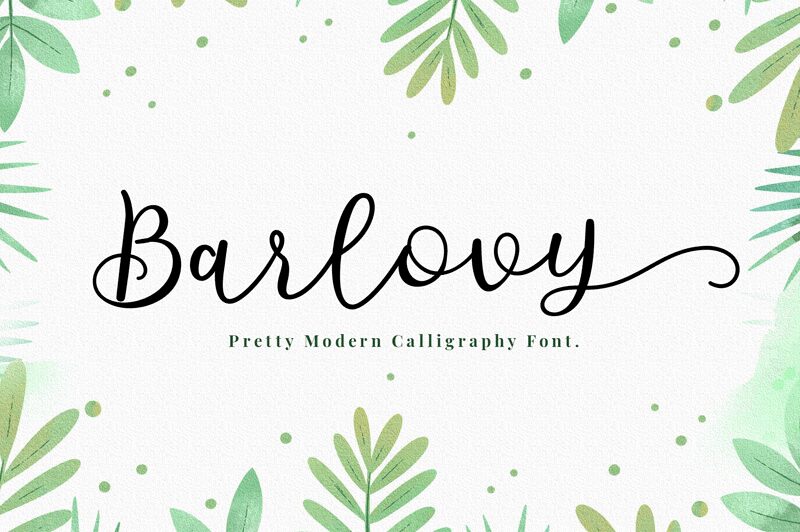
Barlovy Script, designed by Sizimon.id, is a stunning calligraphy font that exudes elegance and sophistication. With its semi-light weight, this font is perfect for projects requiring a delicate touch, such as wedding invitations or romantic poetry. Barlovy Script features flowing strokes and intricate details that are sure to make any text stand out. Whether you're designing a logo or creating a beautiful quote graphic for social media, Barlovy Script is the perfect choice for projects that require an artistic touch. Let this font elevate your designs and leave a lasting impression on your audience.